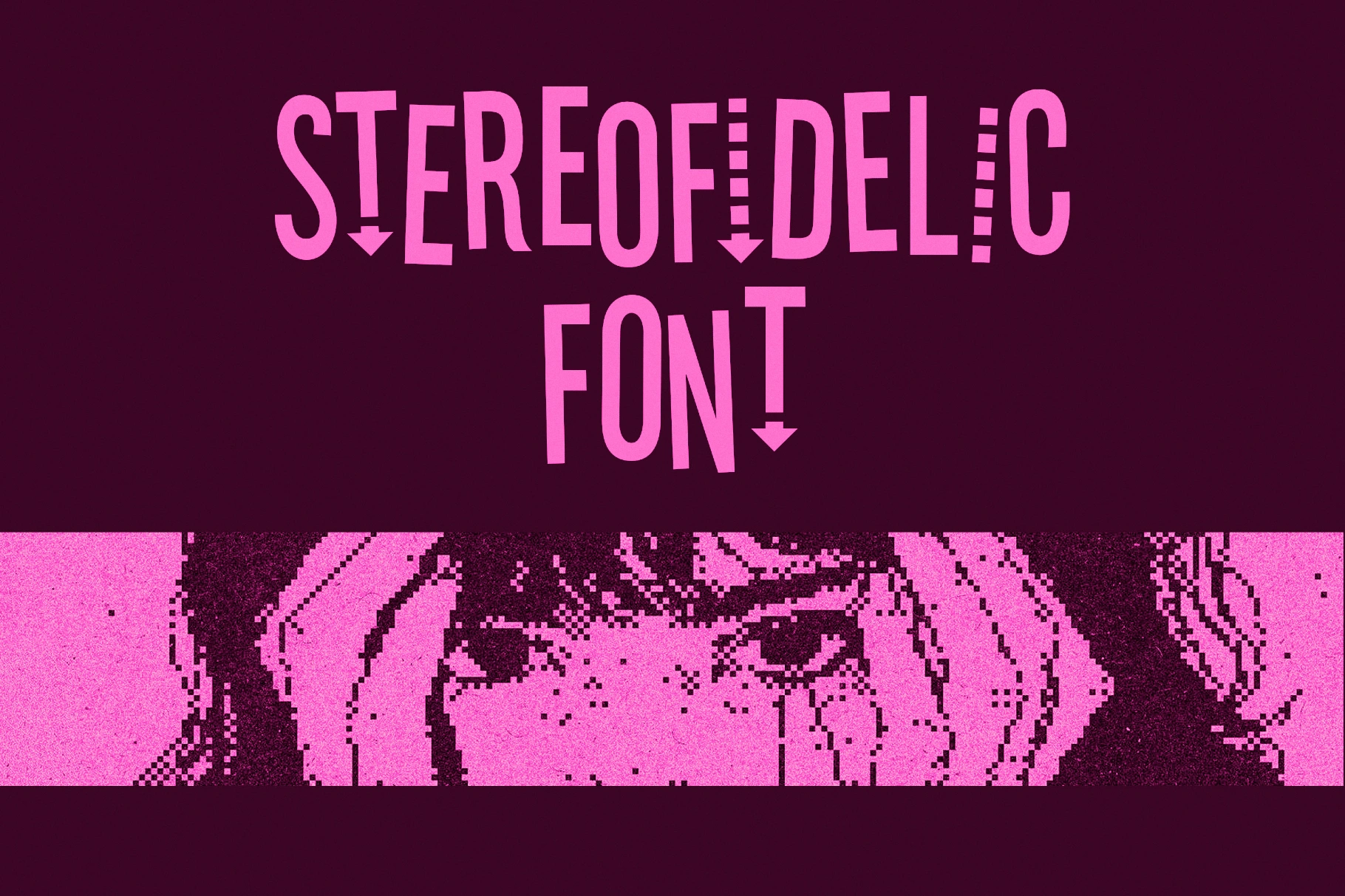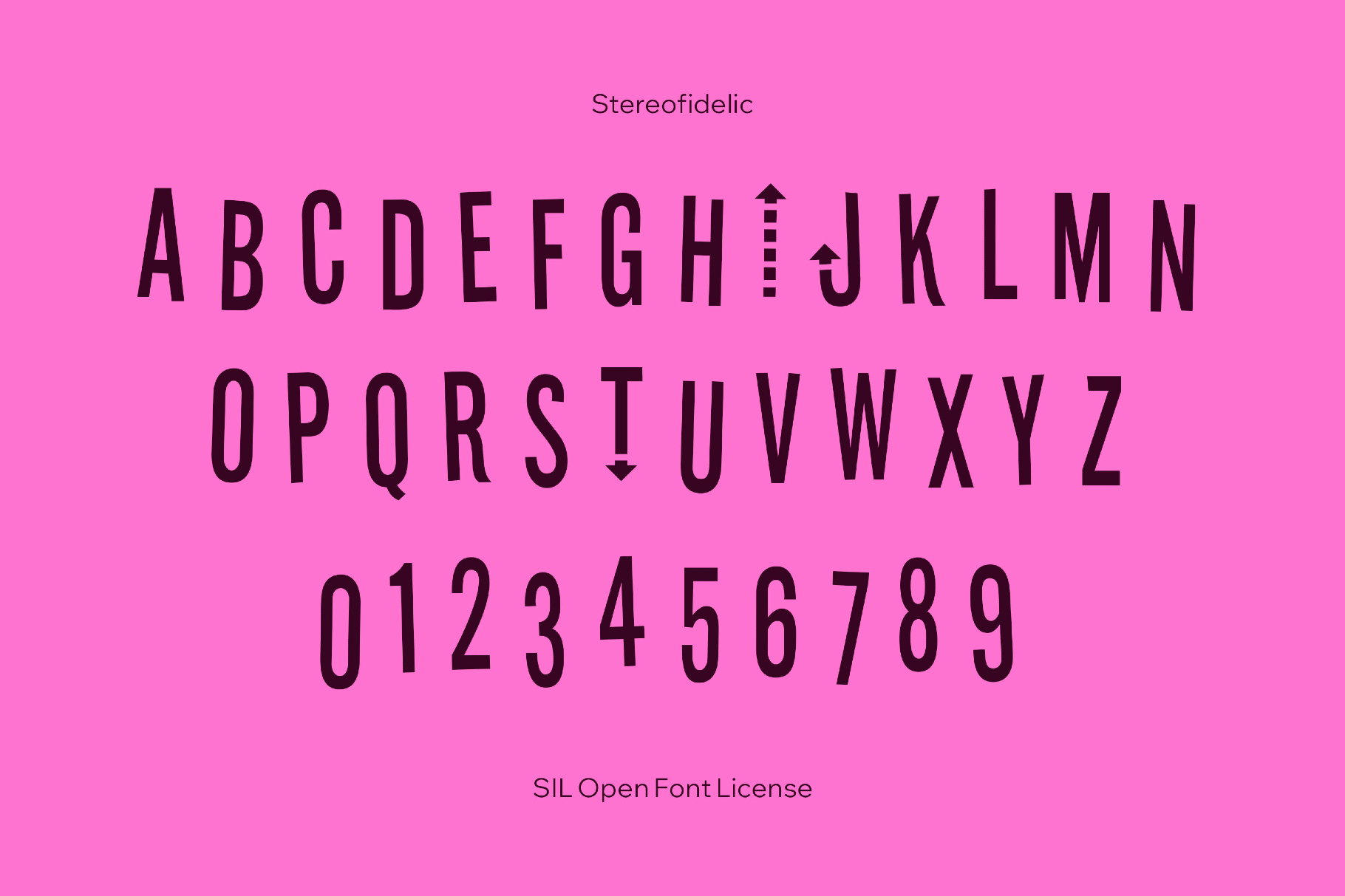
Stereofidelic Font
Stereofidelic
Stereofidelic is a warped, retro-futurist sans that tilts each letter a few degrees off-center, like type pulled straight from a lounge record sleeve. In place of the "I" and the exclamation mark, there're quirky arrows.
The font works well for album artwork, experimental posters, club flyers, podcast covers, magazine headers, music labels, motion titles, short-form video graphics, and statement merch.